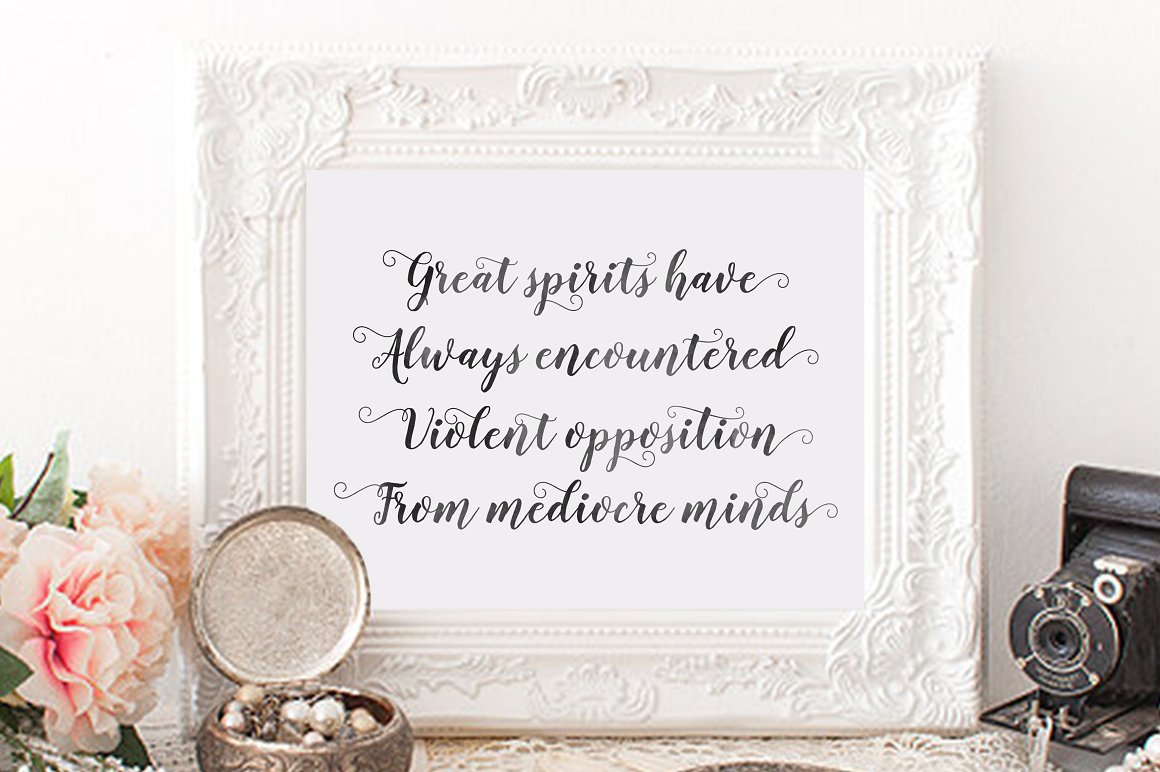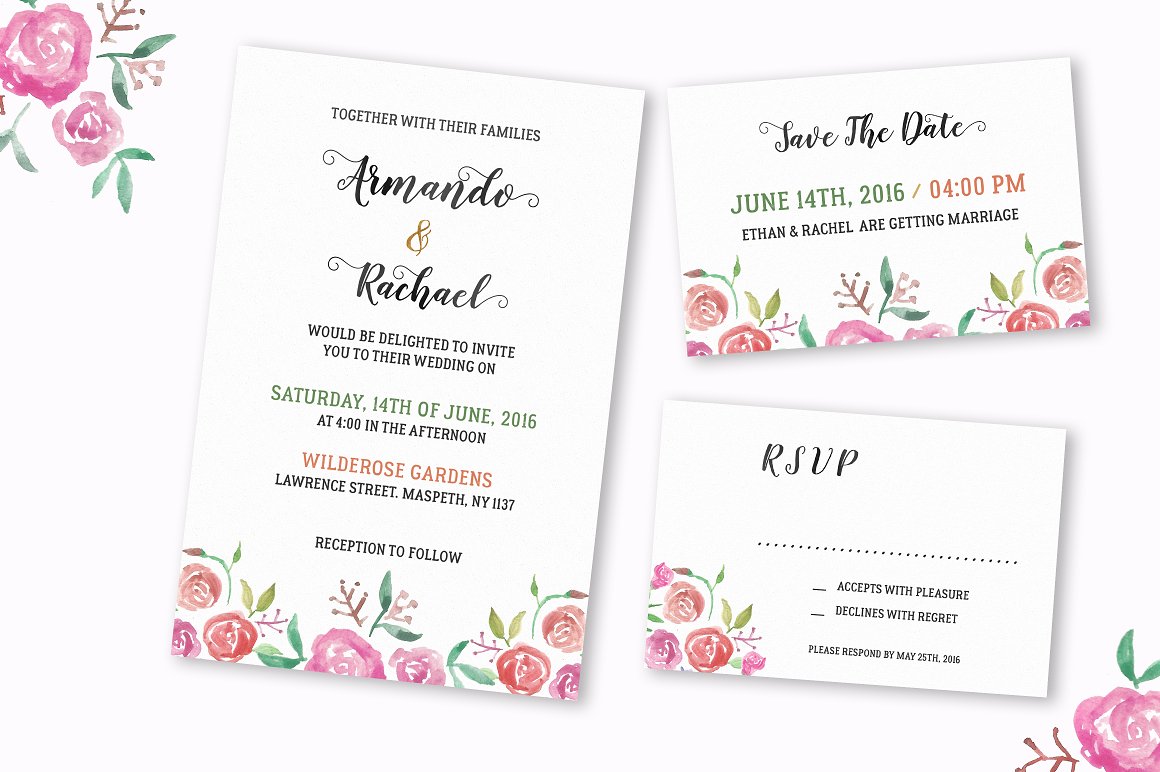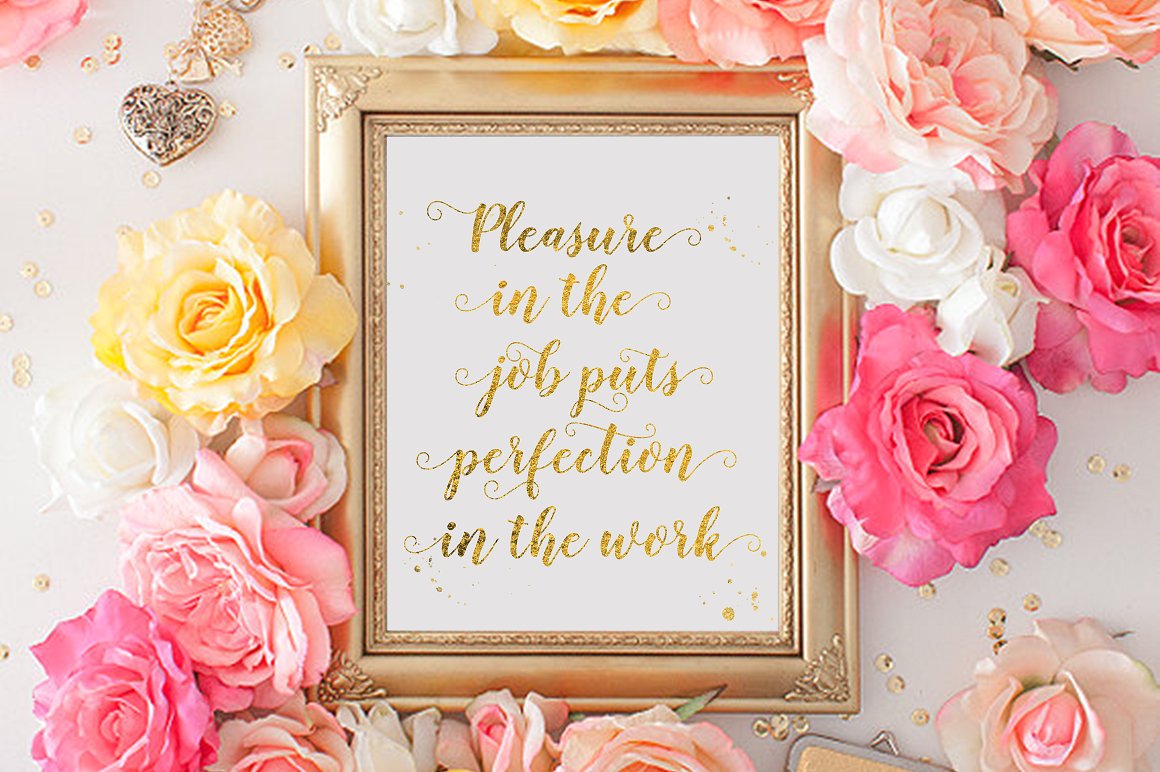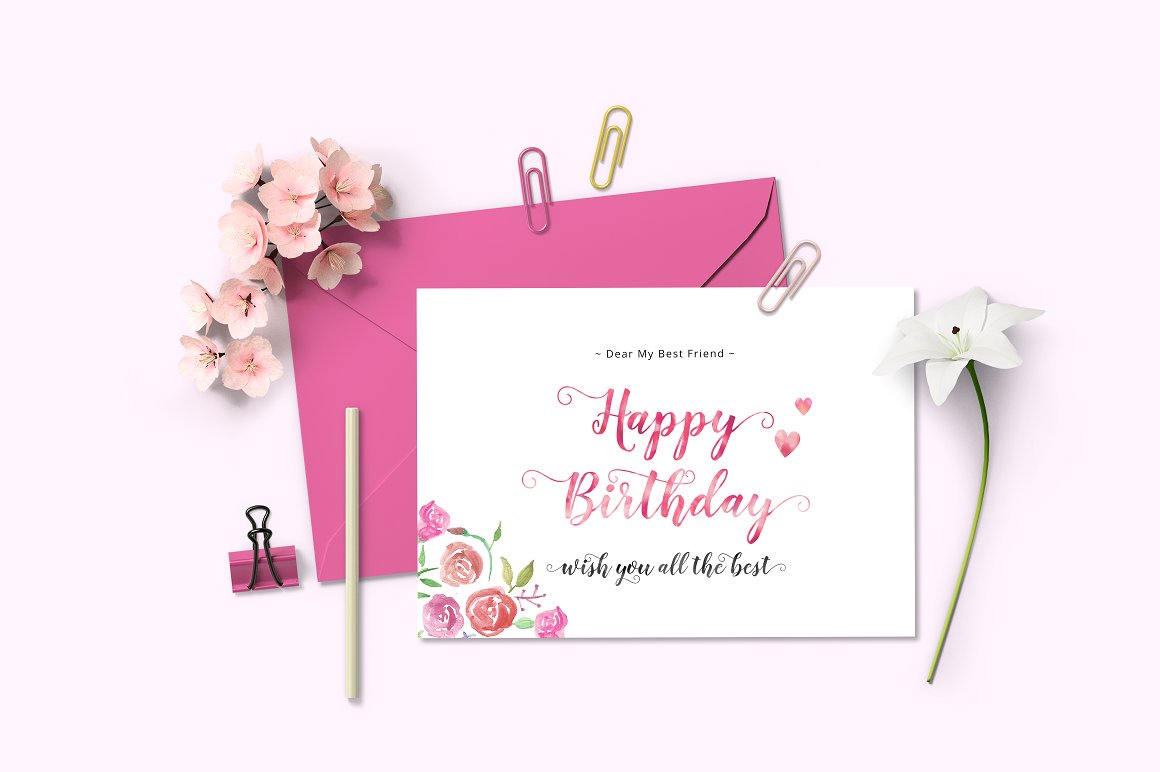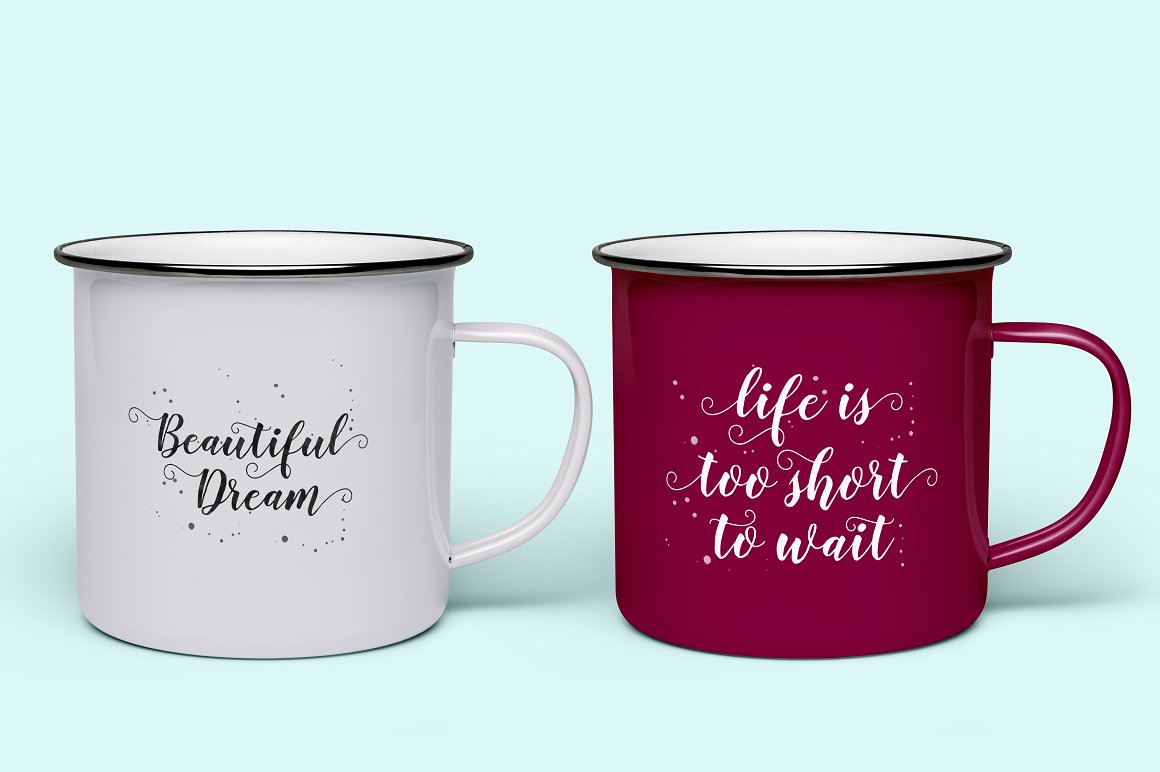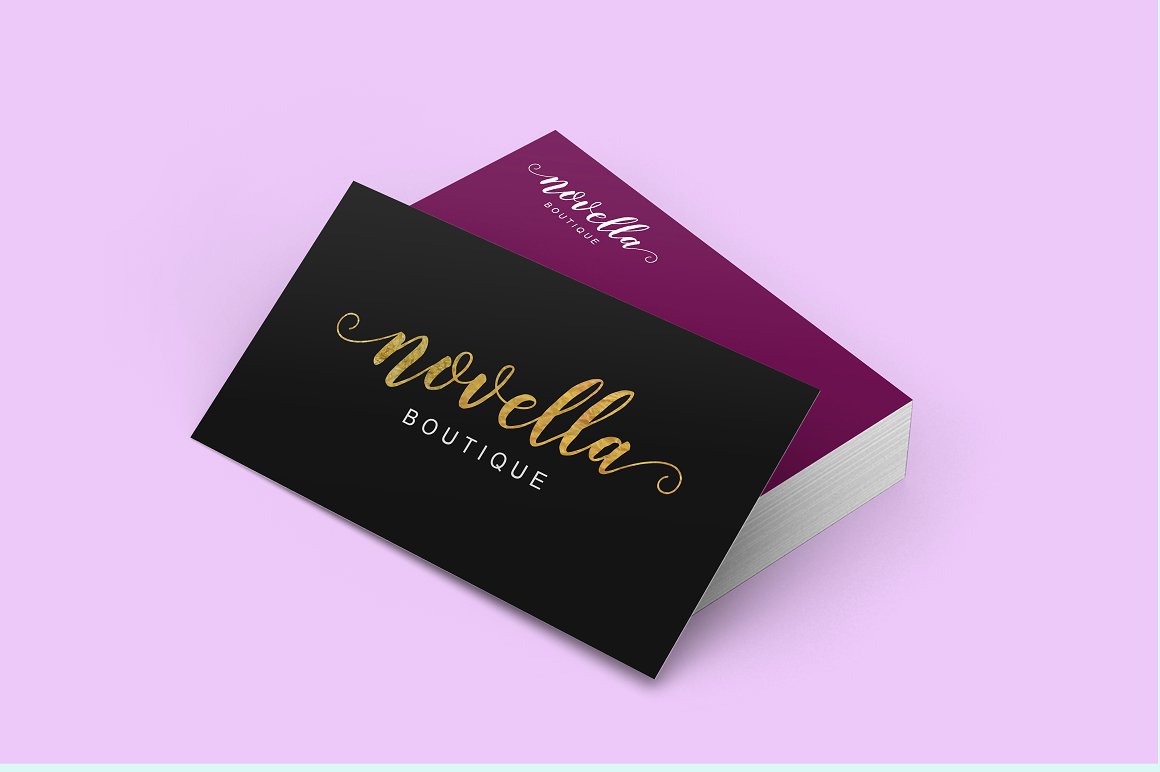
Introducing Delighted Font: A Modern Calligraphic Script with a Personal Touch
Are you tired of using the same old fonts for your design projects? Look no further than Delighted Font, a fun and modern handwritten script that’s sure to add a personal touch to your creations. In this article, we’ll take a closer look at Delighted Font, its features, and how it can elevate your designs.
What is Delighted Font?
Delighted Font is a beautiful, handwritten script that’s been carefully crafted with a fine brush to give it a unique, modern calligraphic style. Its creator has poured their heart and soul into designing a font that’s both elegant and playful, making it perfect for a wide range of design projects.
Key Features of Delighted Font
- Handwritten with a fine brush: Delighted Font has been created with a fine brush, giving it a smooth, fluid look that’s reminiscent of traditional calligraphy.
- Modern calligraphic style: This font features a modern calligraphic style that’s perfect for designers who want to add a touch of elegance to their work.
- Fun and playful: Despite its elegant appearance, Delighted Font is also a lot of fun to use. Its playful nature makes it perfect for designs that require a bit of personality.
Who is Delighted Font for?
Delighted Font is perfect for designers, crafters, and anyone who loves to create beautiful things. Whether you’re working on a branding project, creating social media graphics, or designing a craft project, this font is sure to be a great addition to your toolkit.
How to Use Delighted Font in Your Designs
Using Delighted Font in your designs is easy. Here are a few ideas to get you started:
- Branding projects: Use Delighted Font to create beautiful logos, business cards, and letterheads that showcase your brand’s personality.
- Social media graphics: Add a touch of elegance to your social media graphics with Delighted Font. It’s perfect for creating eye-catching posts and stories.
- Craft projects: Delighted Font is also great for craft projects, such as card making, scrapbooking, and journaling.
Tips for Getting the Most out of Delighted Font
Here are a few tips for getting the most out of Delighted Font:
- Experiment with different sizes and colors: Delighted Font looks great in a variety of sizes and colors. Experiment with different combinations to find the one that works best for your design.
- Pair it with other fonts: Delighted Font pairs well with other fonts, such as sans-serif fonts and serif fonts. Try pairing it with a bold font for a striking contrast.
- Use it consistently: To get the most out of Delighted Font, use it consistently across your design project. This will help to create a cohesive look that’s both elegant and professional.
Delighted Font is a beautiful, modern calligraphic script that’s perfect for designers and crafters who want to add a personal touch to their creations. With its elegant appearance and playful nature, it’s sure to be a great addition to your toolkit. Whether you’re working on a branding project, creating social media graphics, or designing a craft project, Delighted Font is a great choice.